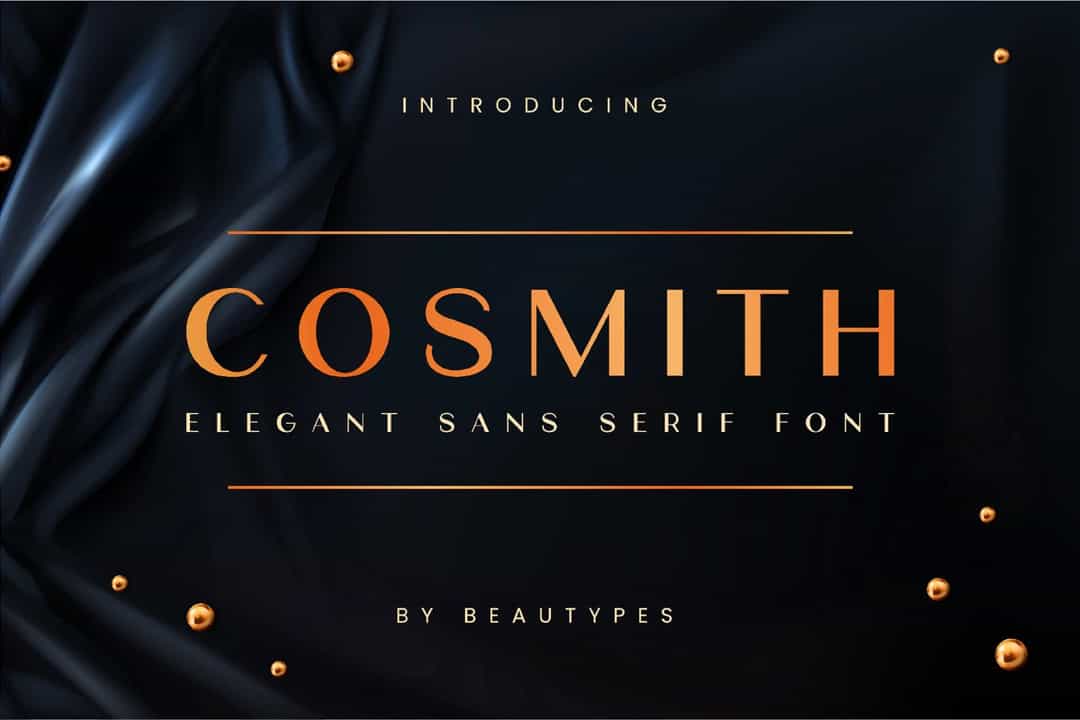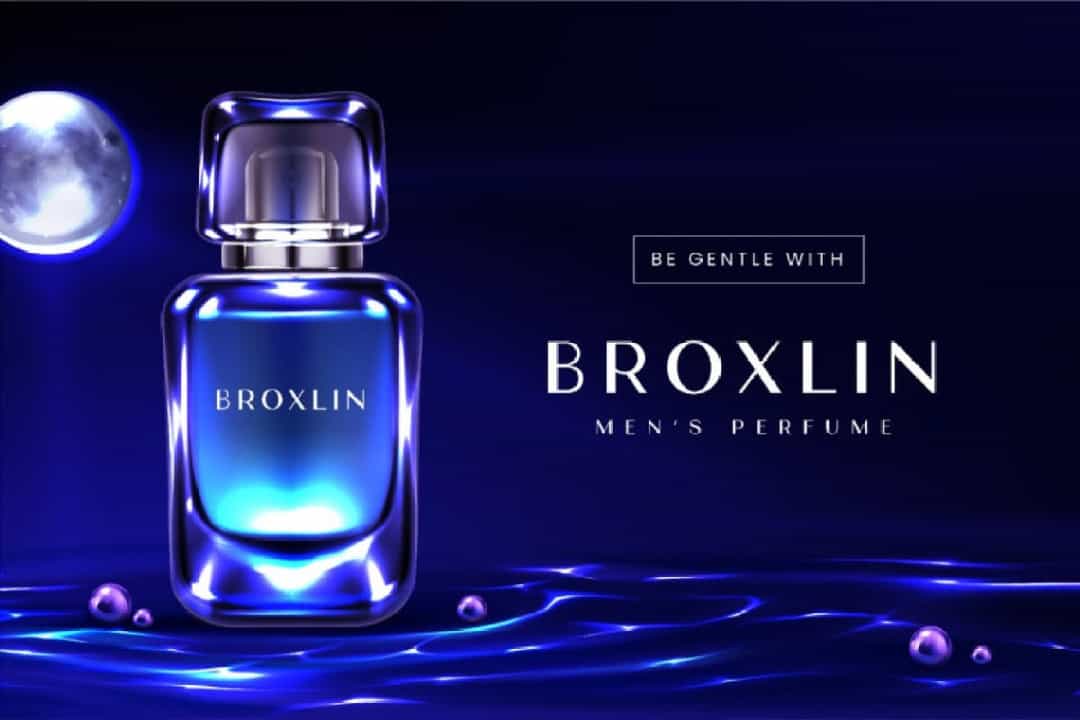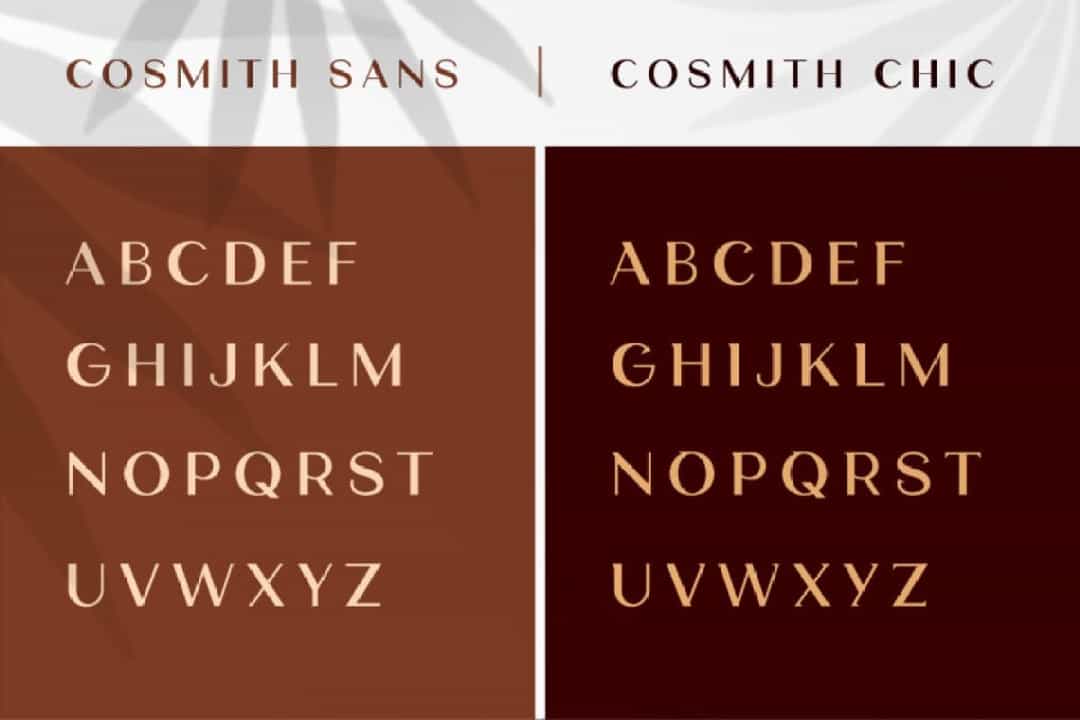
Cosmith Font is elegant, clean and modern sans-serif typeface and it is ideal for use in branding for fashion and cosmetic brands. Thus, two font styles are used to create an exquisite logotype for your company or brand.